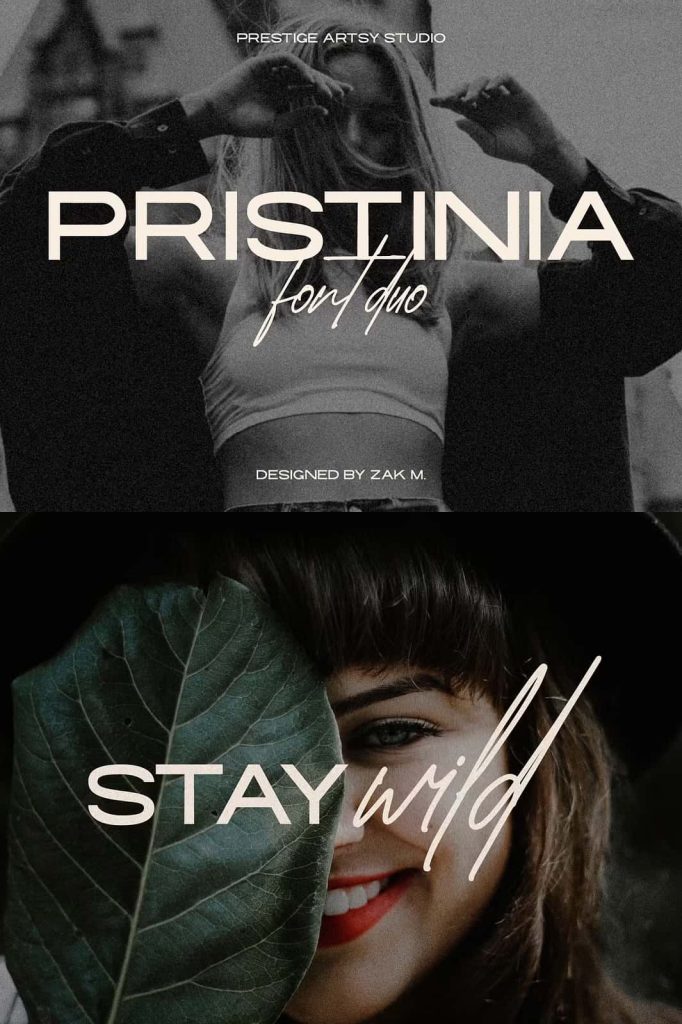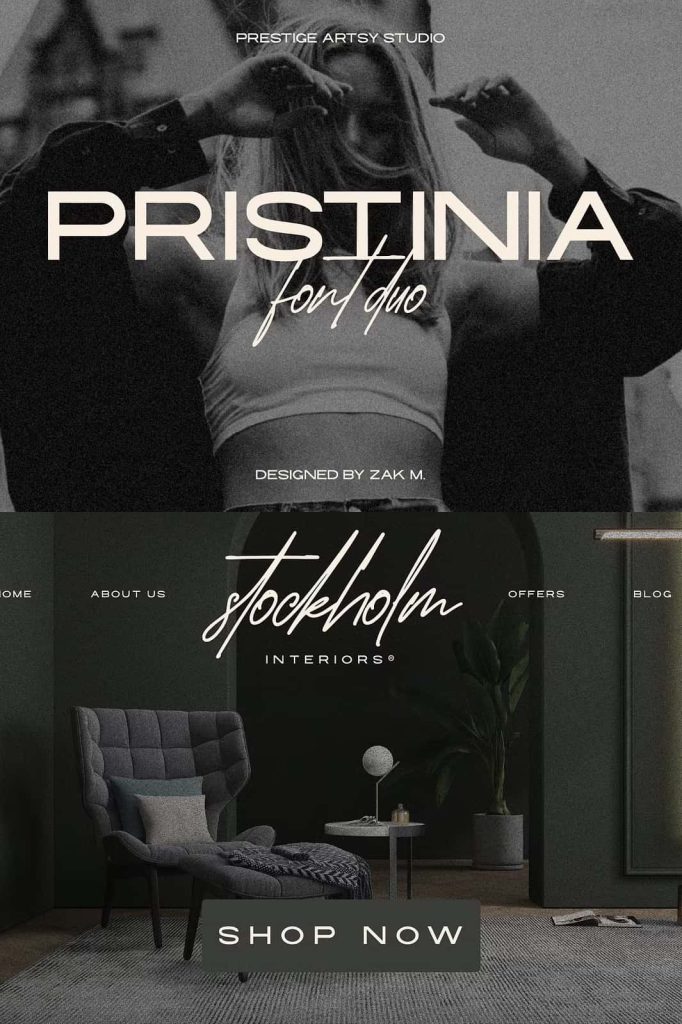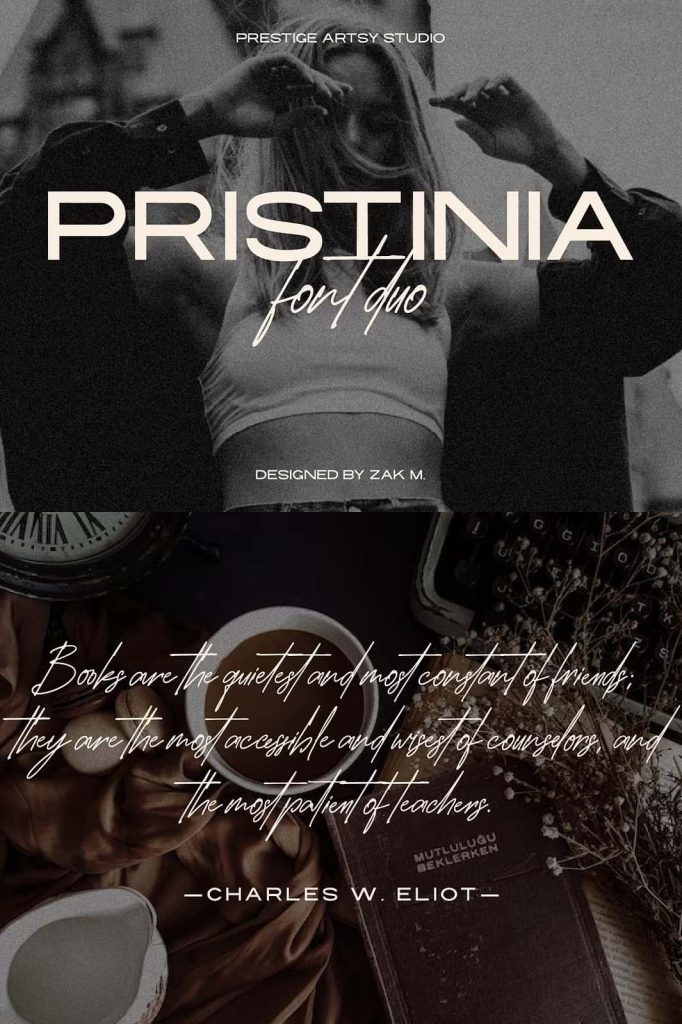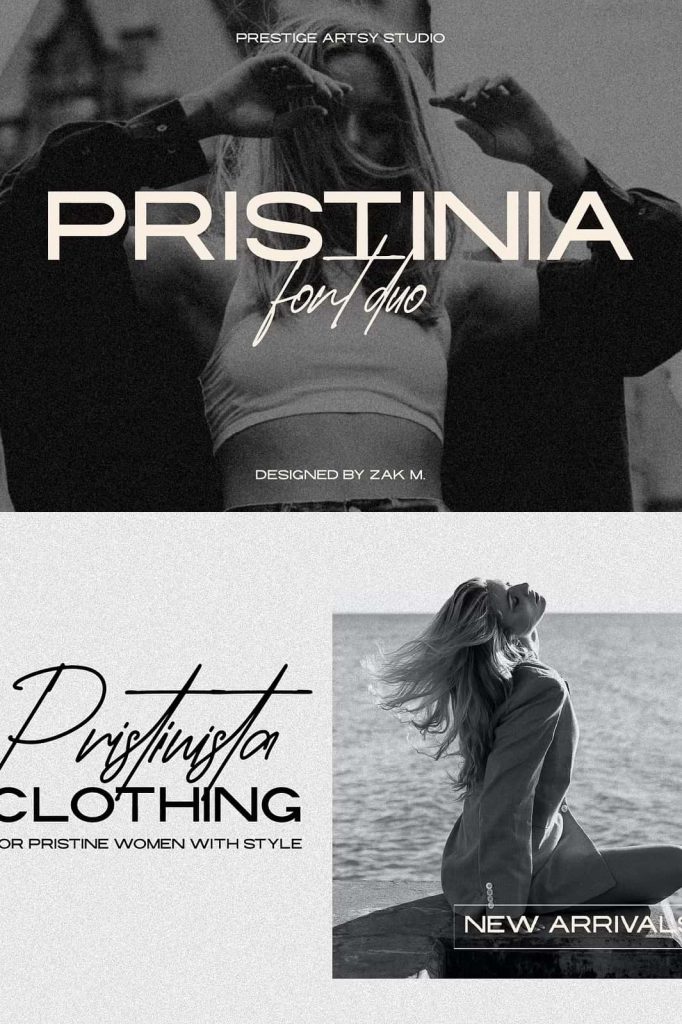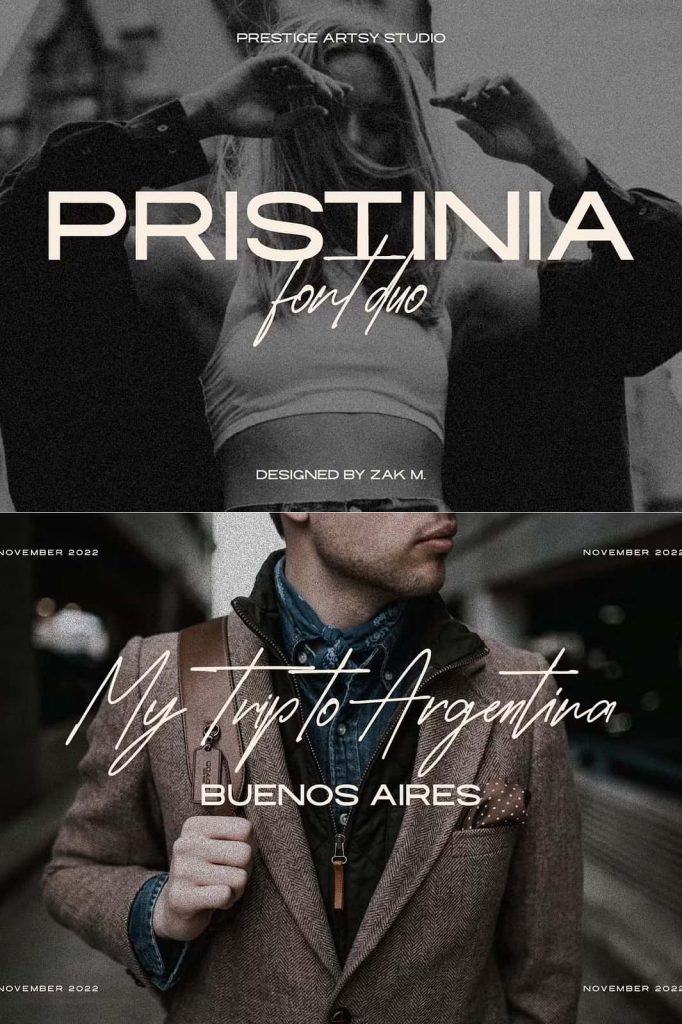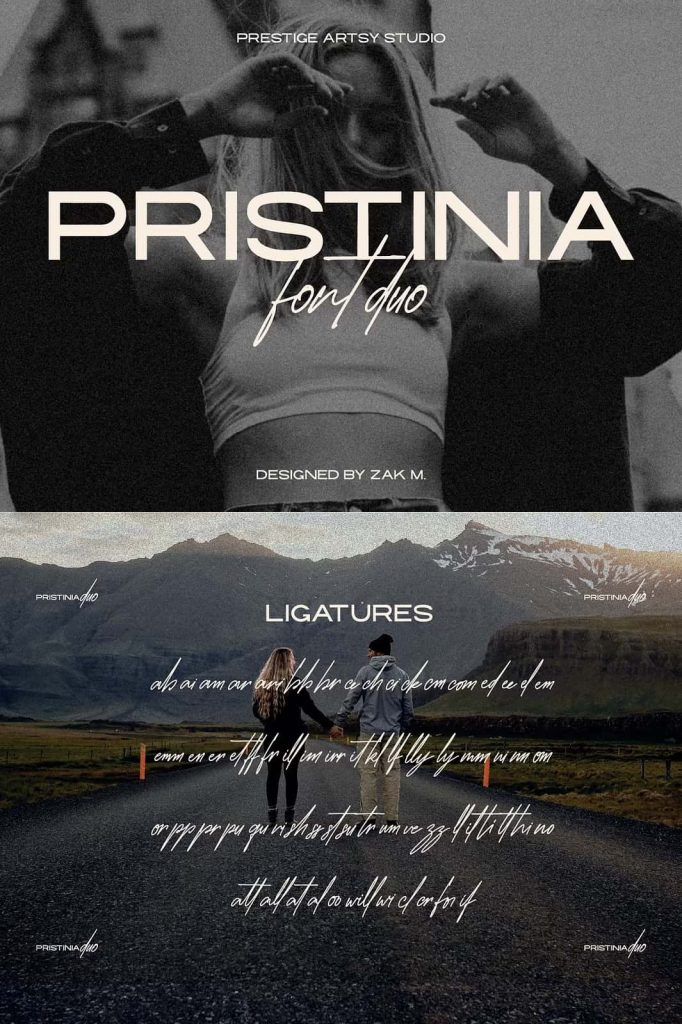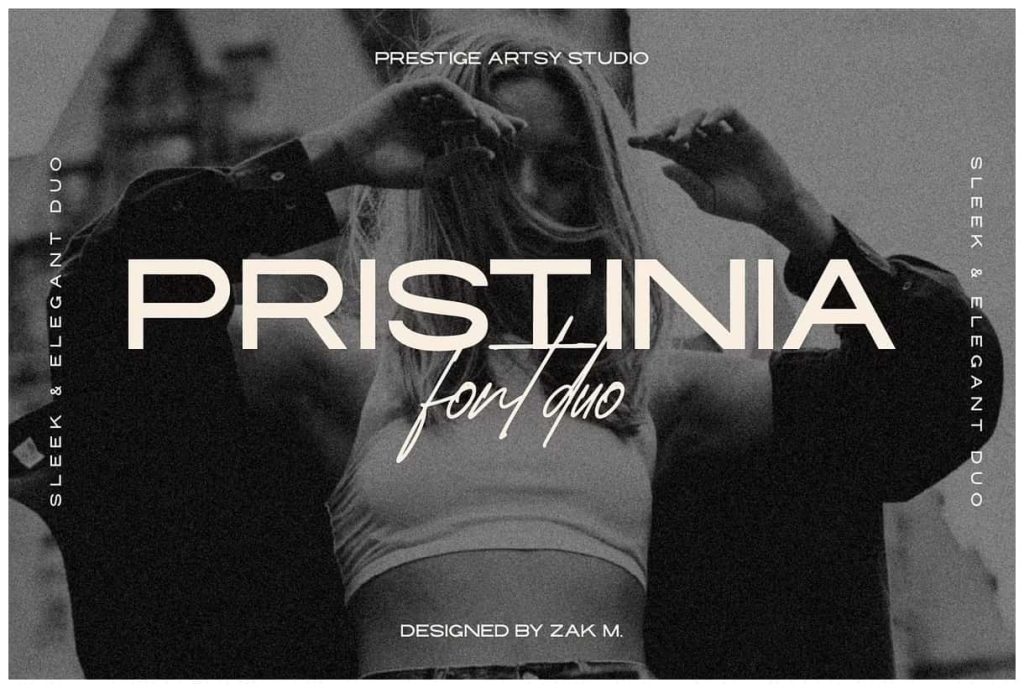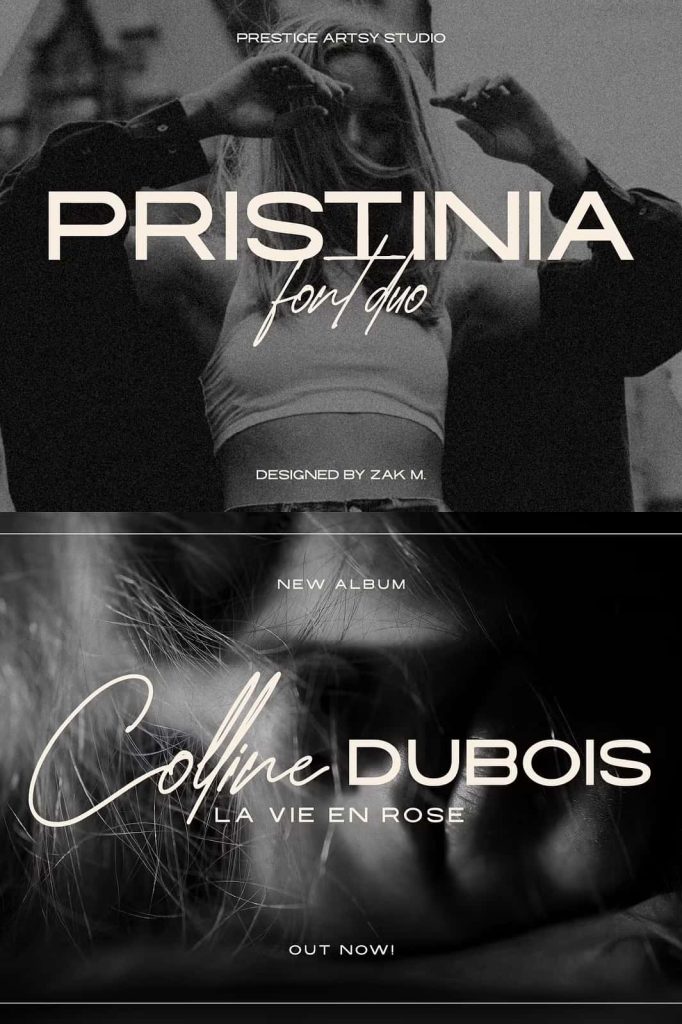
Pristinia Duo is a powerful fancy and impactful bold mono-lined script font that comes in with a clean all-caps sans serif font that makes a great harmonious pair.